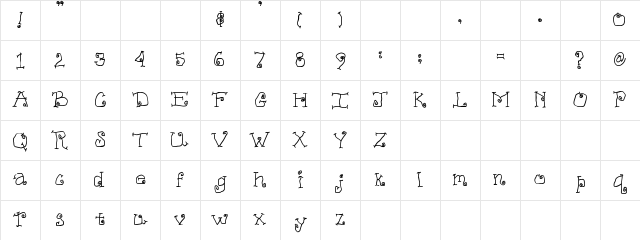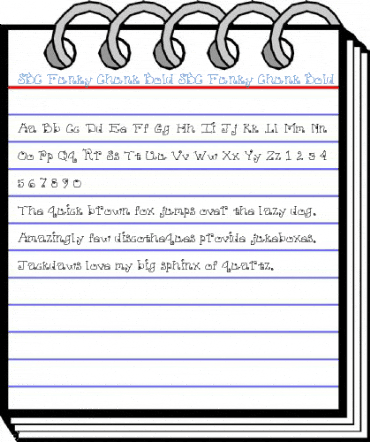
SBC Funky Chunk Bold has an approachable, lighthearted character - its loose, expressive forms are well-suited to children's content, casual branding, and fun-first design.
Font Pairing: Pairs well with a rounded or humanist sans for body copy, maintaining the friendly tone without relying on SBC Funky Chunk Bold to carry extended reading.
Pro Tip: Use SBC Funky Chunk Bold at larger display sizes where its expressive character can land. Pair with a clean, simple sans for body copy to maintain readability.